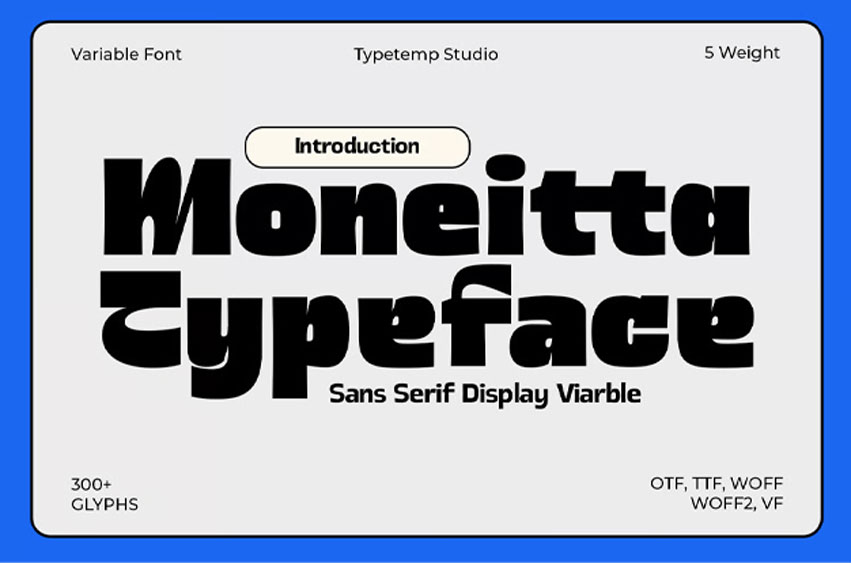
Moneitta Font Typeface is a bold, modern, and playful sans serif display font presented by Typetemp Studio. Seamlessly blending chunky, expressive letterforms with a clean geometric structure, this font is crafted to bring an energetic, eye-catching vibe to contemporary layouts. Featuring 5 static weights ranging from Extra Light to Bold, plus a fully flexible Variable Font version, Moneitta provides dynamic flexibility and exceptional utility for bold typographic hierarchies.
• Dynamic package: 5 Static Weights (Extra Light, Light, Regular, Semibold, Bold) + 1 Variable Font (VF).
• Rich architecture featuring 300+ creative glyphs.
• High-contrast, thick-and-thin geometric balancing with a playful modern silhouette.
Detailed Usage
• Logos & Branding: An exceptional choice for tech startups, modern cafes, creative design studios, lifestyle brands, and apps looking for a friendly yet strong visual identity.
• Packaging Design: Beautifully upgrades contemporary snack wrappers, juice bottles, organic cosmetic boxes, craft beverage cans, and bold retail product labels.
• Editorial Layouts: A premier option for show-stopping magazine headlines, artistic exhibition catalogs, high-impact presentation decks, and bold book title treatments.
• Digital Content: Elevates website landing pages, attention-grabbing social media graphics, YouTube thumbnail typography, tech block headers, and energetic video text overlays.